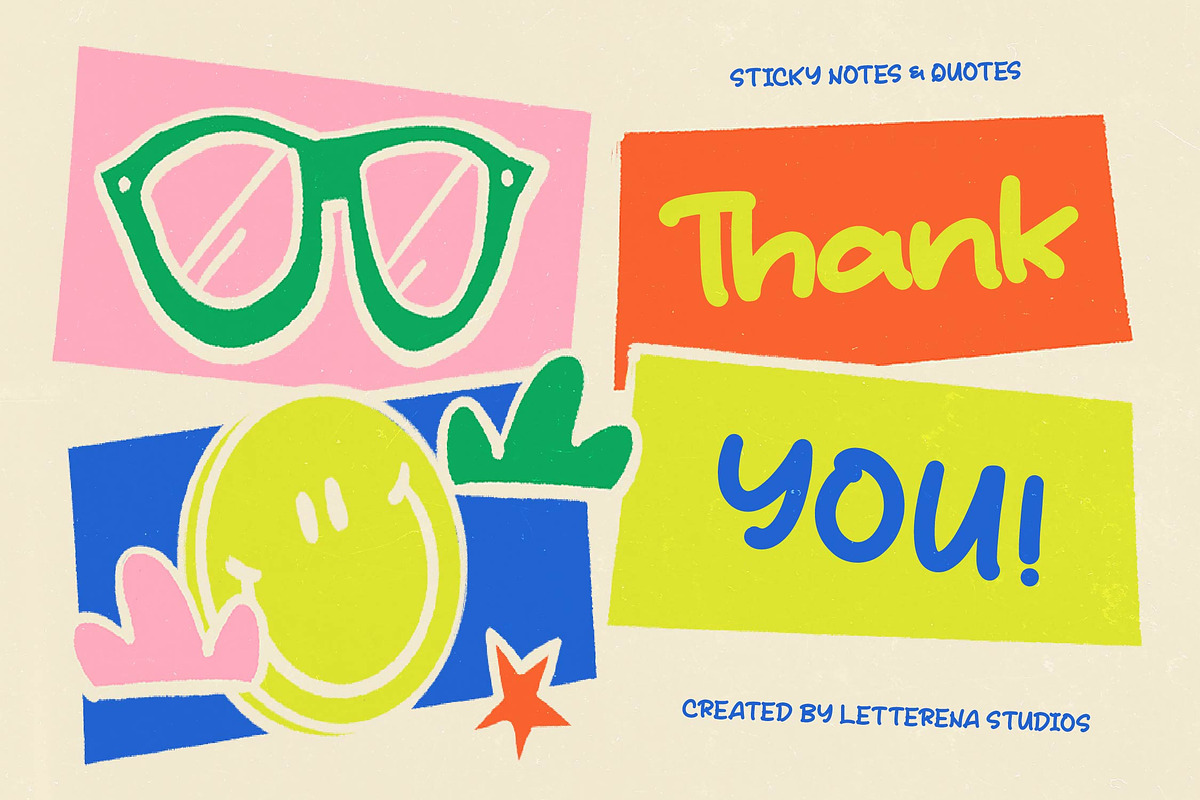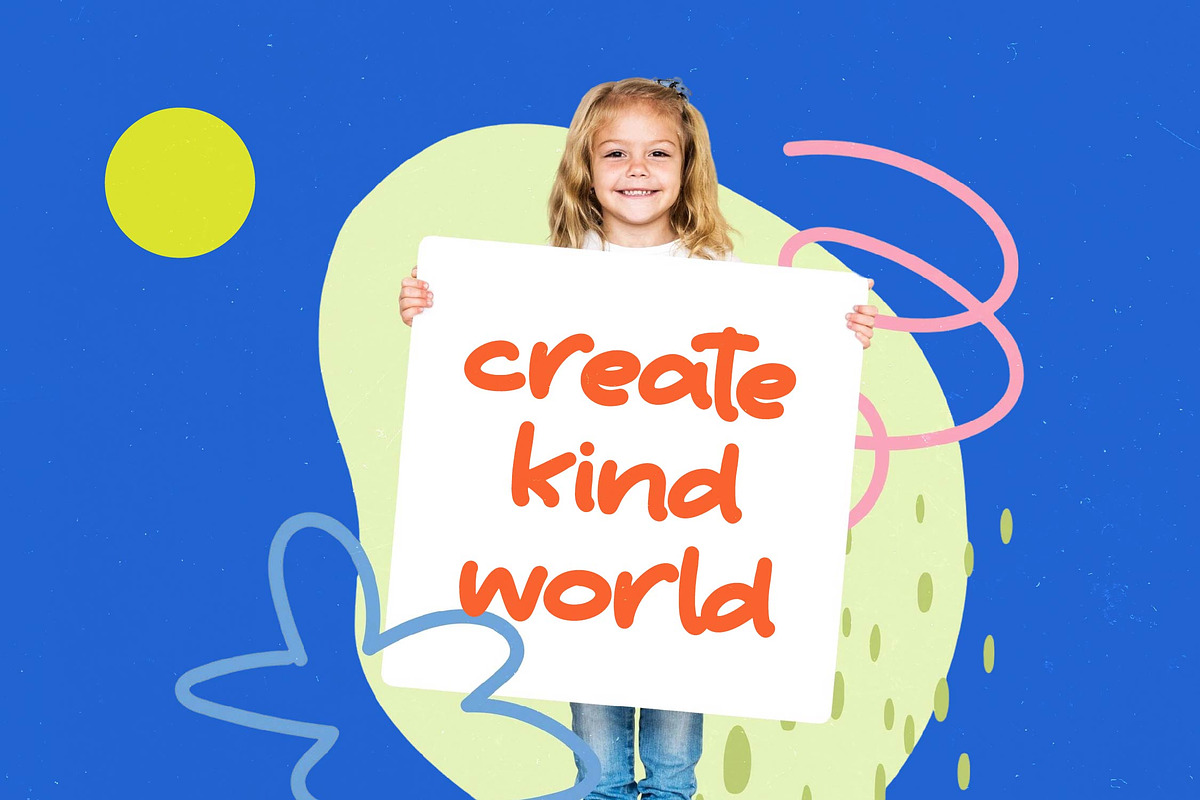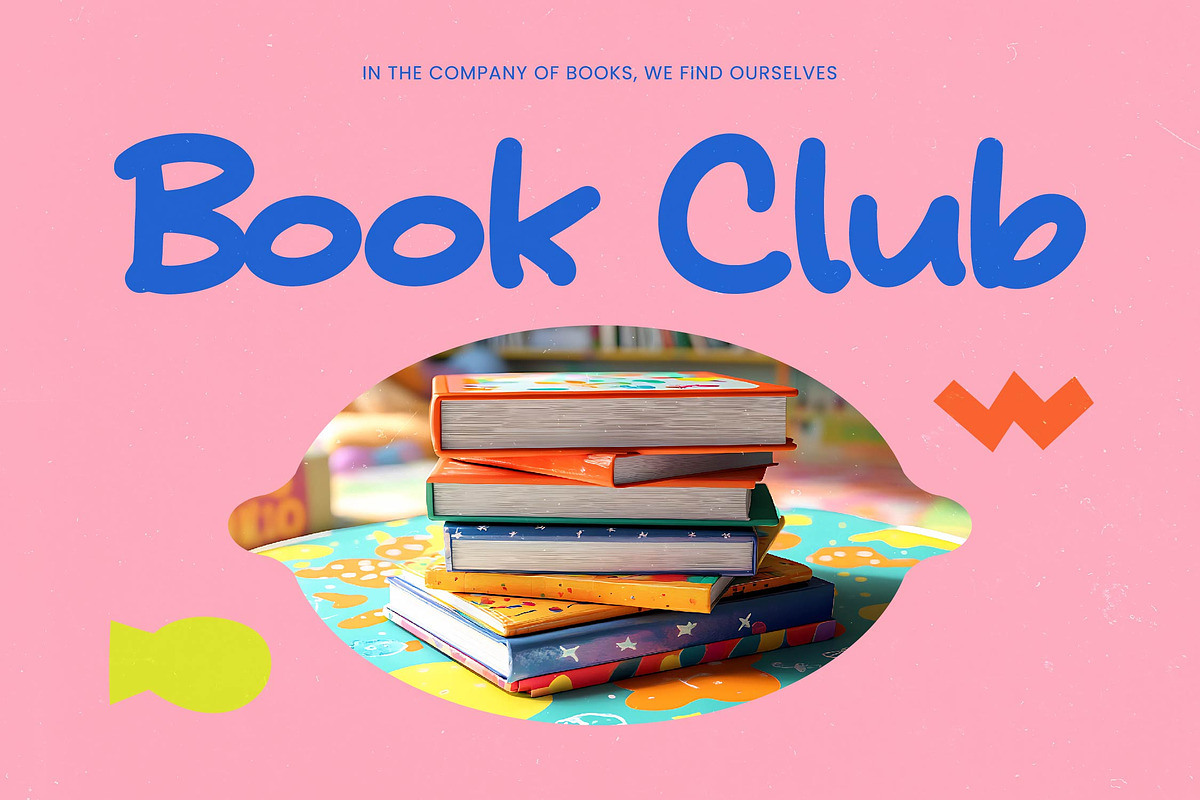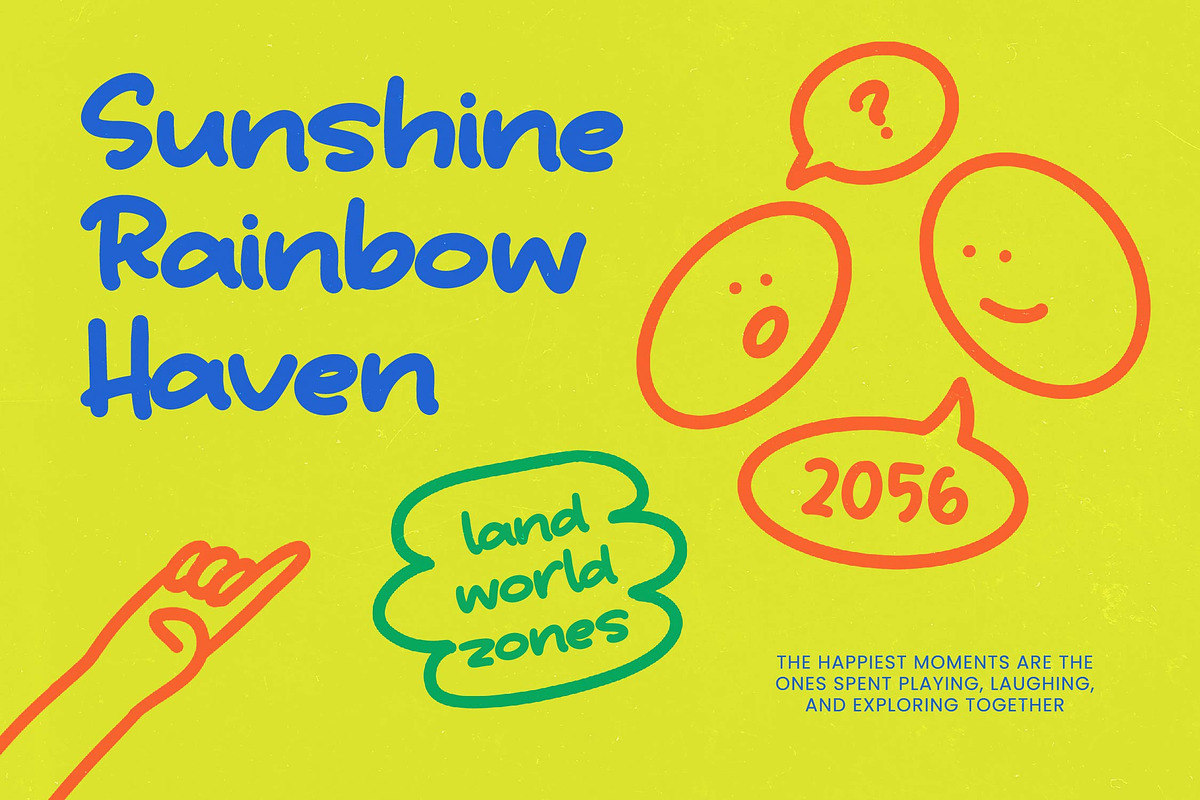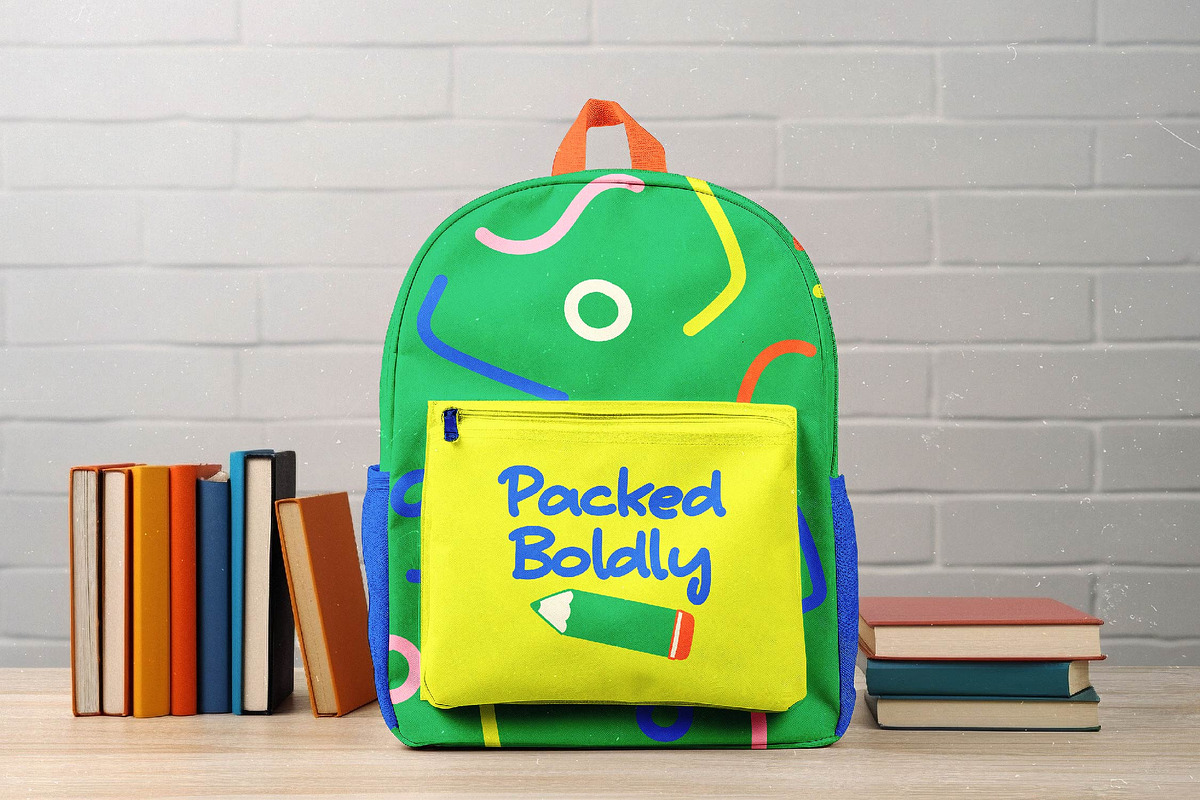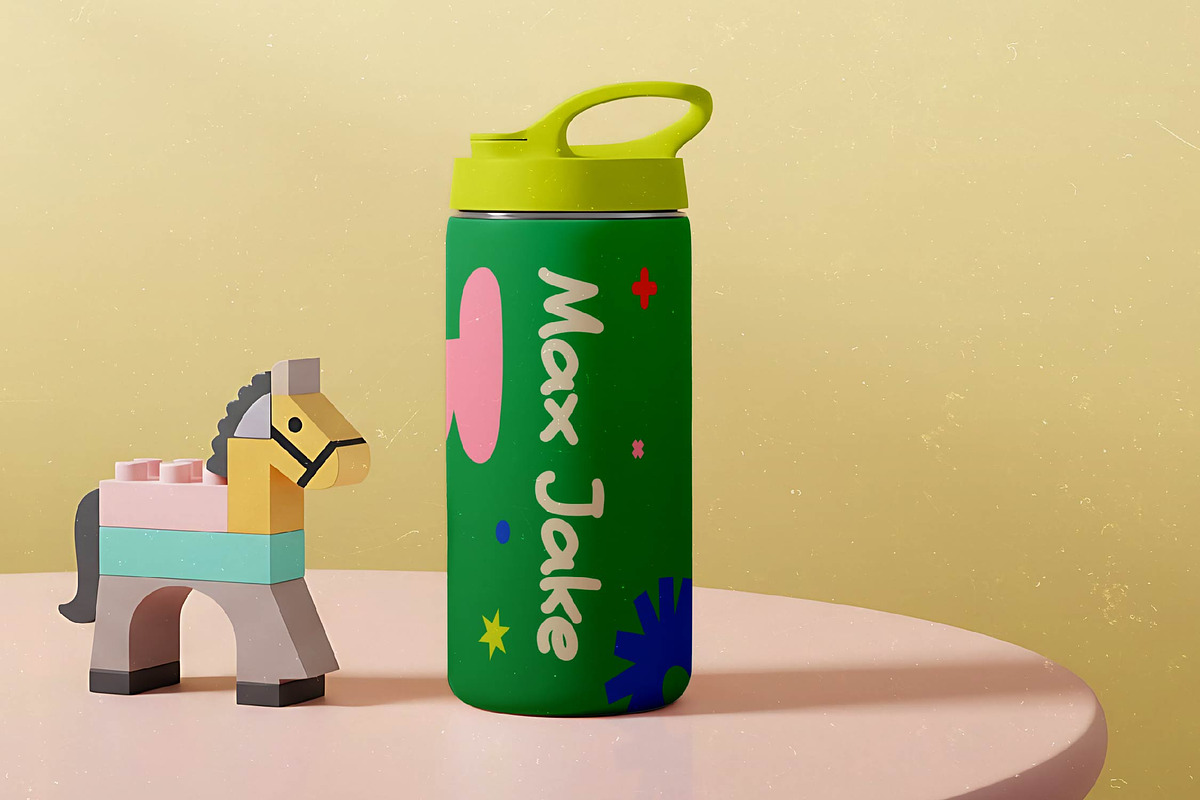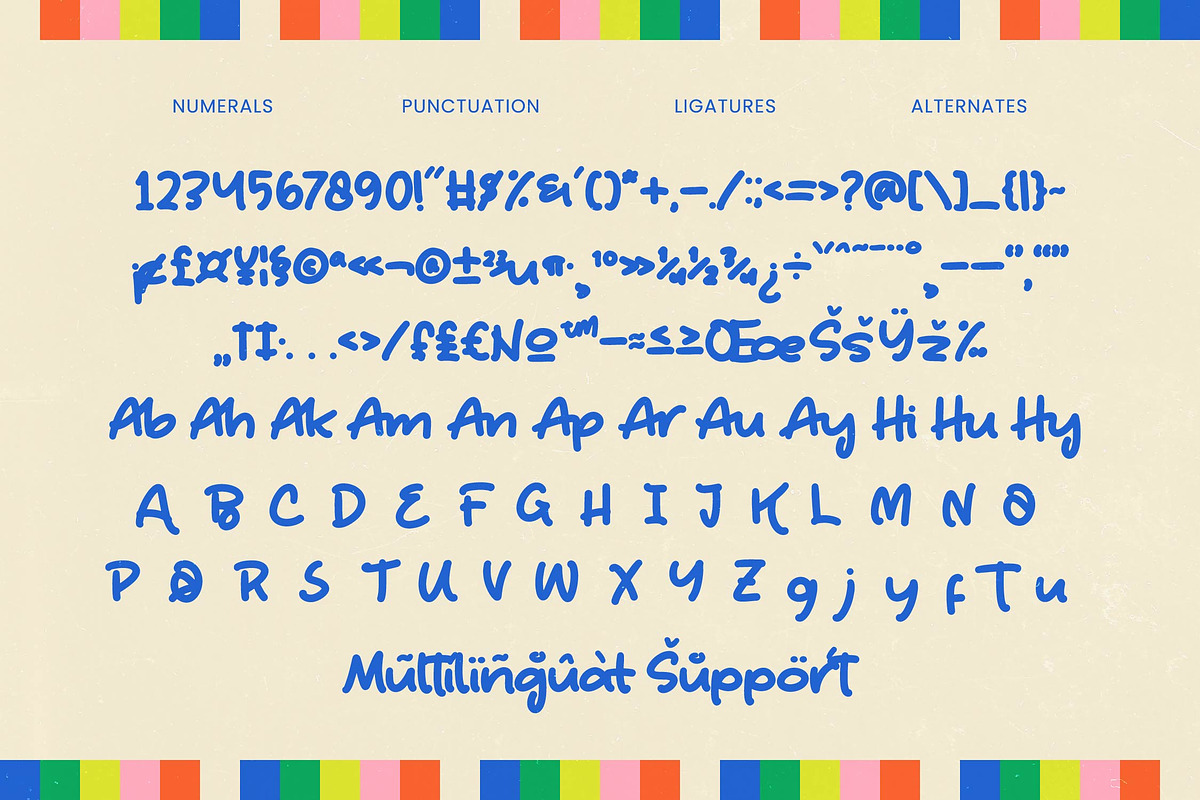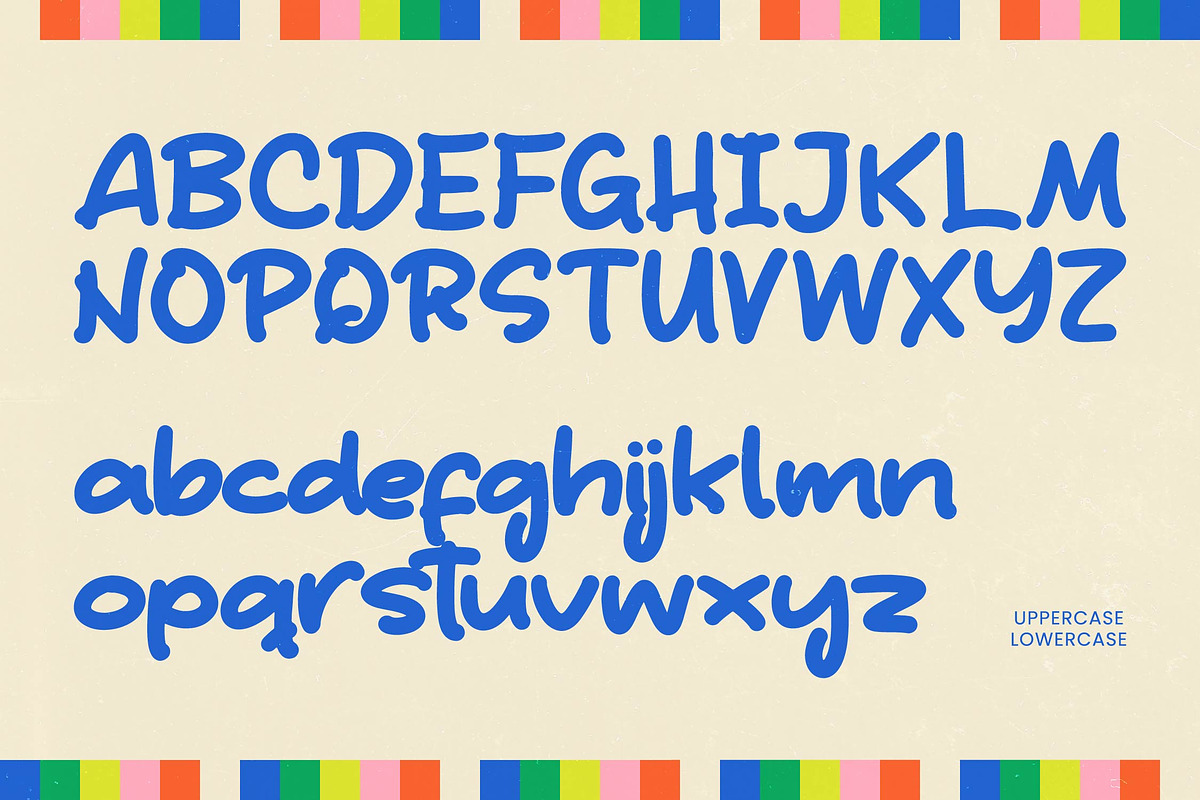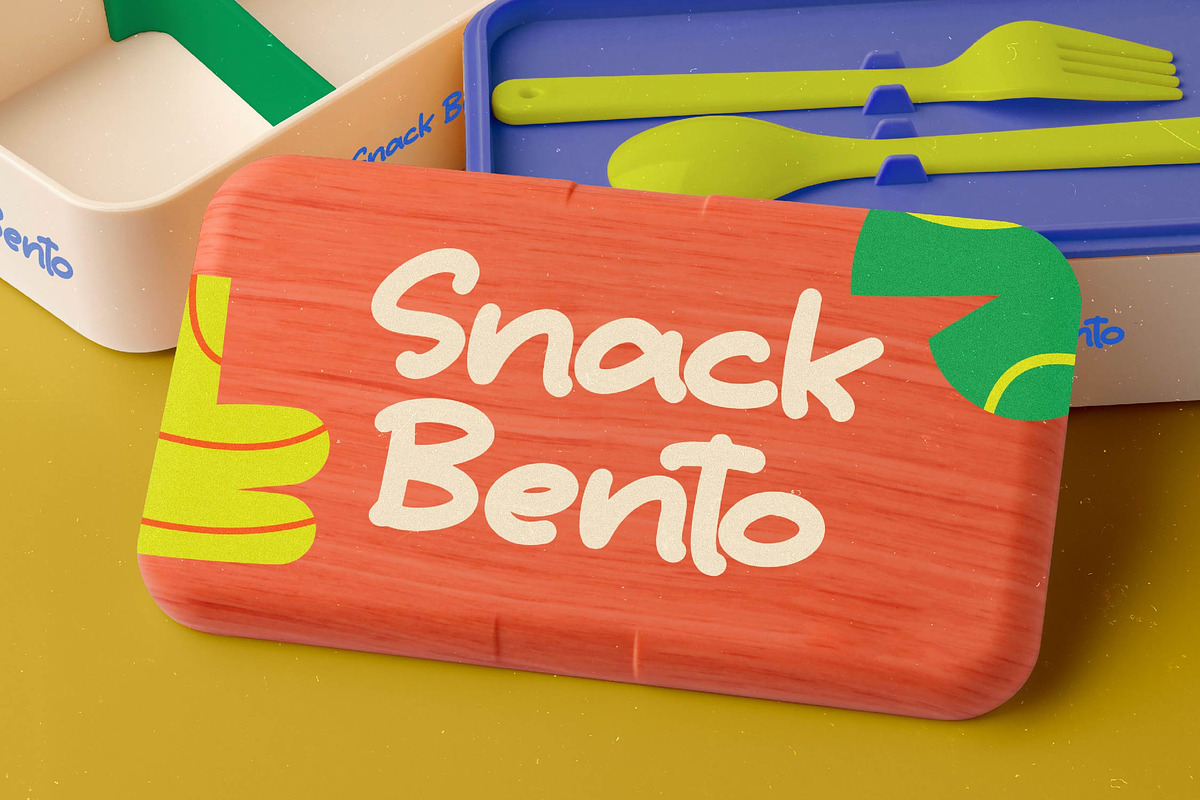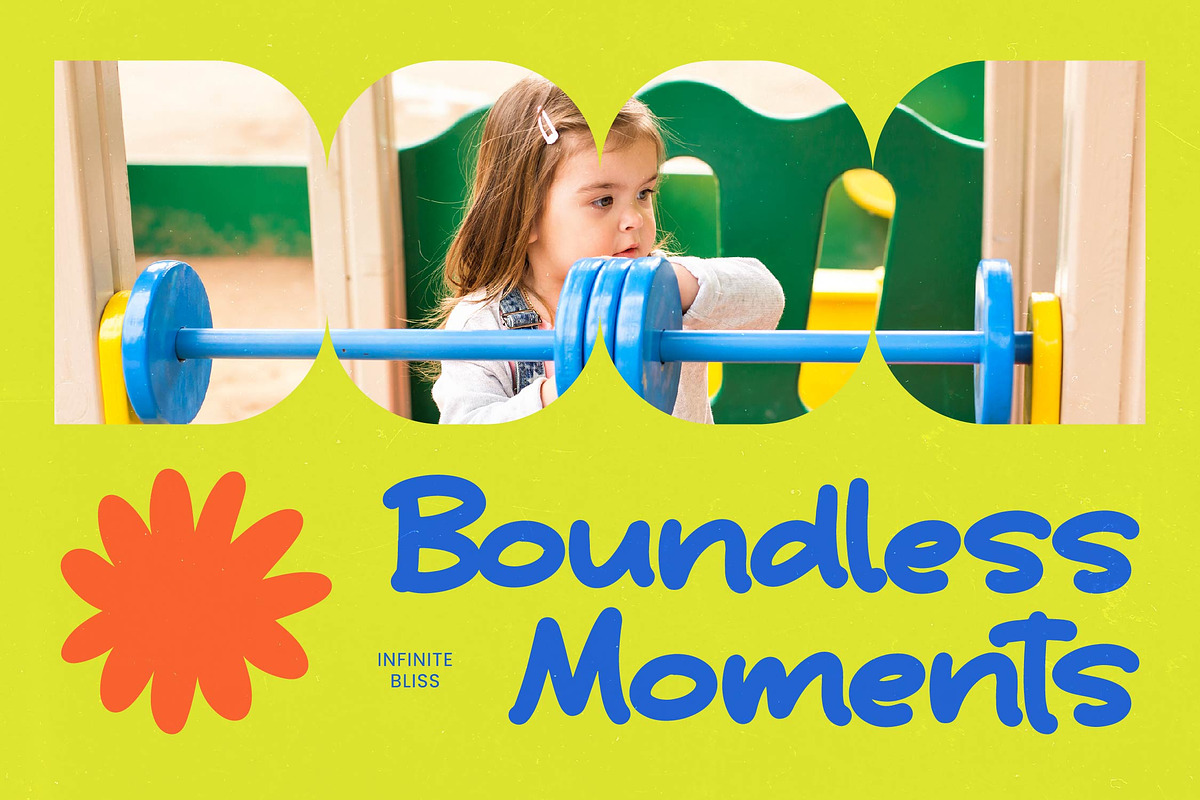
Smile Hug Sticky Notes Font
Smile Hug – Sticky Notes Font Elevate your creative projects with a sense of joy and approachability through dynamic typography. Smile Hug - Sticky Notes is a vibrant, playful display font designed to capture immediate attention and evoke a sense of warmth. Its organic, hand-drawn curves and bold weight offer a unique aesthetic that feels both modern and nostalgically charming. Whether you are aiming for a fun-filled visual identity or a casual note-style layout, this typeface provides the perfect balance of legibility and creative flair.
Expand your brand’s reach effortlessly with a high-performance typeface built for the modern, global world. Versatility is at the core of this design, ensuring it performs brilliantly across diverse media formats and digital platforms. With its extensive multilingual support, Smile Hug - Sticky Notes adapts seamlessly across global markets, making it incredibly versatile for international projects. This global compatibility ensures that your marketing messages remain consistent and impactful, regardless of the territory or language.
Discover the perfect typographic partner for high-impact visual storytelling and customer engagement. Smile Hug - Sticky Notes is perfect for social media quotes, youthful packaging, and informal branding that seeks to build an authentic emotional connection. Beyond digital use, it shines in editorial design, event posters, and lifestyle stationery, bringing a refreshing and energetic personality to every composition that requires a friendly, human touch.
Achieve professional-grade customization and aesthetic distinction with advanced typographic features. Professional designers will appreciate the depth of character options provided within Smile Hug - Sticky Notes, including its premium ligatures and 32 stylistic alternates. These features allow for a truly bespoke look, mimicking the natural variations of handwritten text. By choosing Smile Hug - Sticky Notes, you are investing in a versatile design asset that transforms standard text into a compelling visual statement.
Numerals
Punctuations (OpenType Standard)
Accents (Multilingual Characters)
Ligatures and Alternative Style Stylistic Set